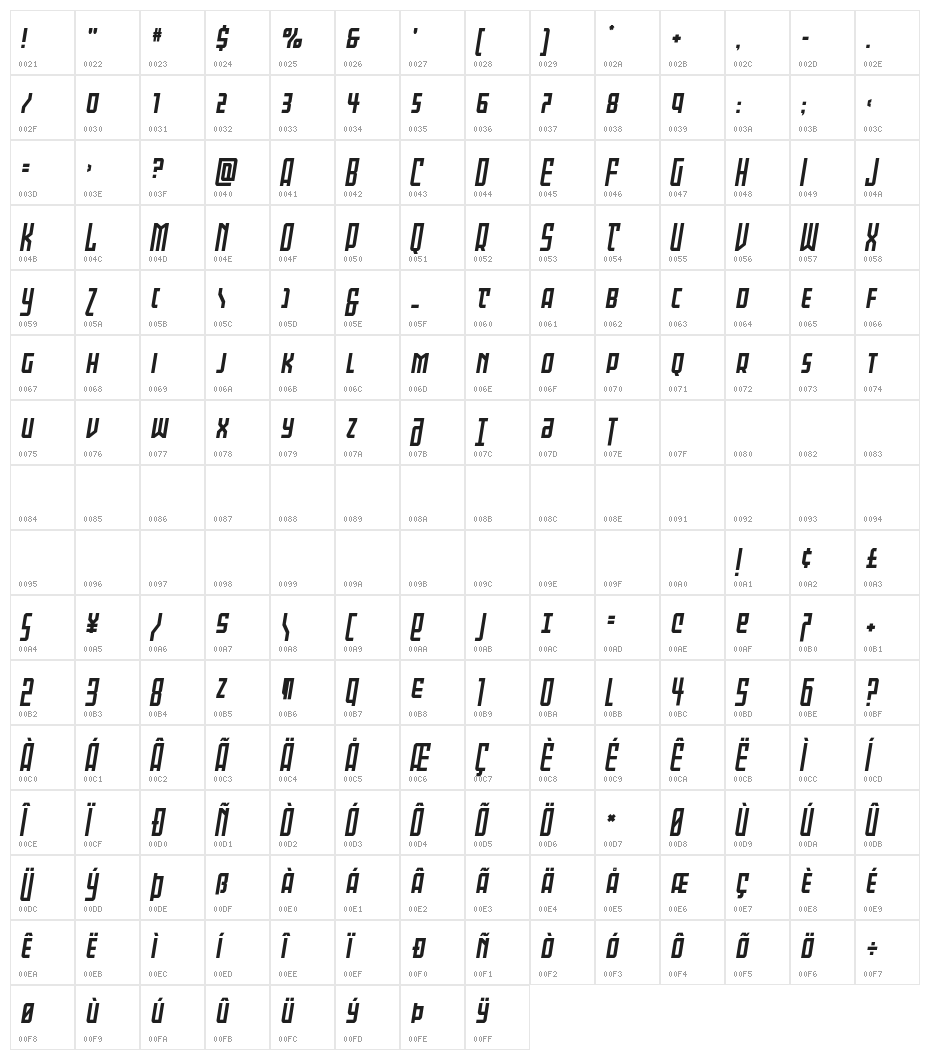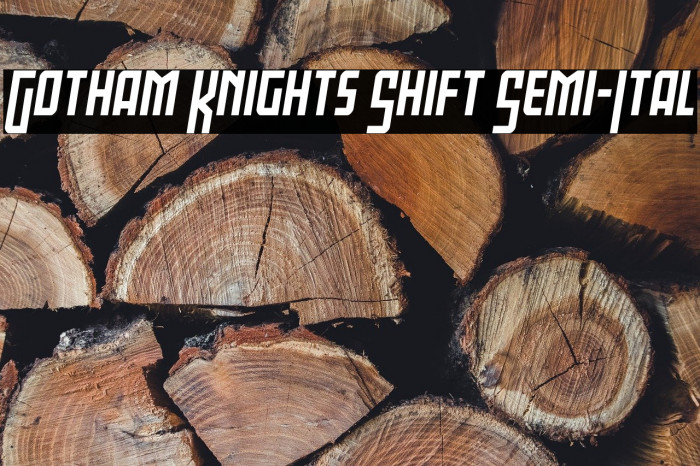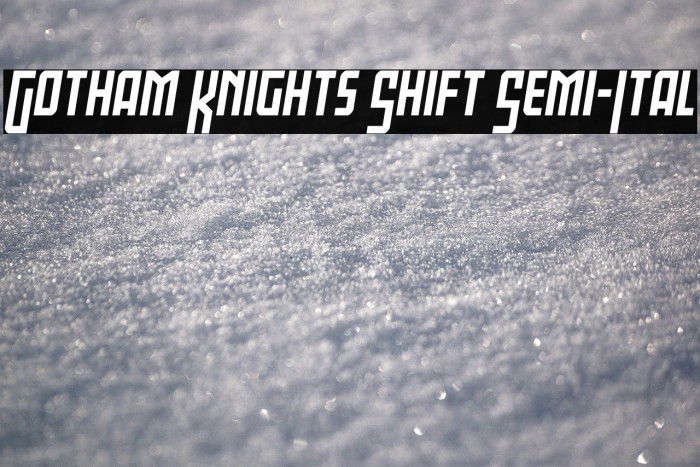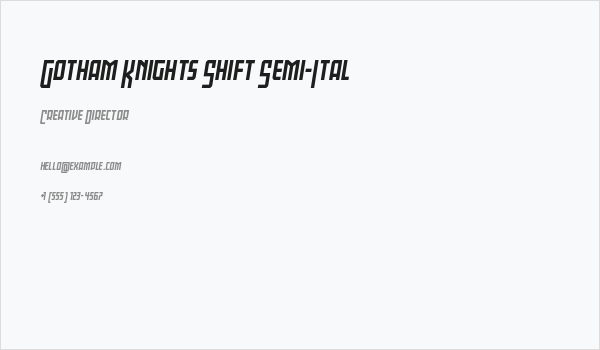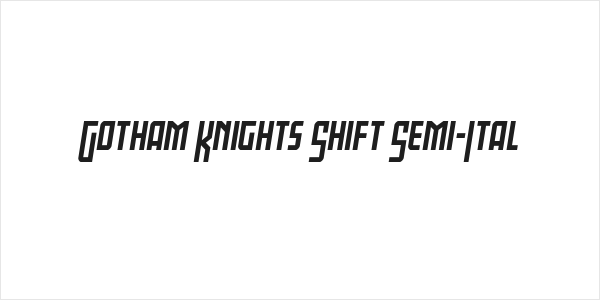
Gotham Knights Shift Semi-Ital Font
Gotham Knights Shift Semi-Ital Description
This font features a bold and dynamic style with a distinct slant, giving it a sense of motion and energy. The characters are angular and geometric, with sharp edges and a futuristic appearance. The uppercase and lowercase letters maintain a consistent height, contributing to a uniform look. Numbers and special characters are designed to match the overall aesthetic, ensuring cohesion across all elements. The font's unique style makes it suitable for projects that require a modern and edgy look.
| Proposed Projects | Ideal for video game titles, movie posters, sports branding, and tech-related designs. |